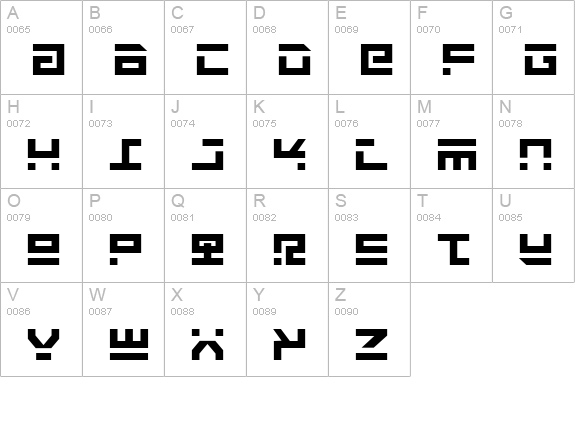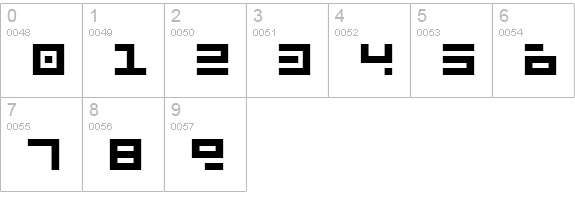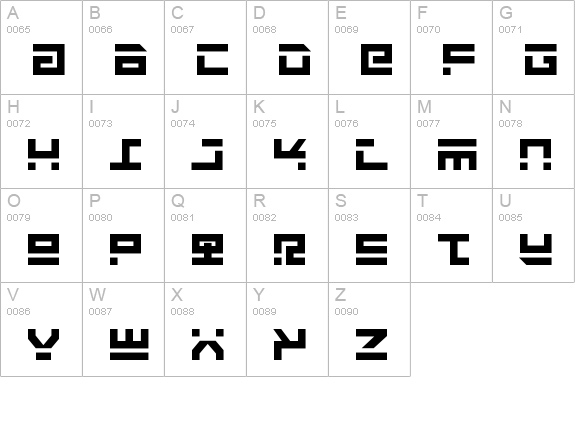
Rocket Type Bold is a strong, high-contrast variant in the Rocket typeface family \xE2\x80\x94 well suited to headlines, attention-grabbing titles, and strong calls-to-action.
Rocket Type Bold font is a modern and stylish typeface that exudes confidence and strength. Its bold and striking design makes it perfect for headlines, titles, and other attention-grabbing text. The sharp edges and clean lines give this font a futuristic and edgy look that is sure to make your designs stand out. And the best part? Rocket Type Bold font is completely free to download at FontsMarket.com. Whether you're working on a print project, website design, or any other creative endeavor, this font is a versatile choice that will add a touch of boldness to your work. Don't miss out on the opportunity to enhance your designs with this sleek and powerful font - download Rocket Type Bold today and take your projects to new heights!